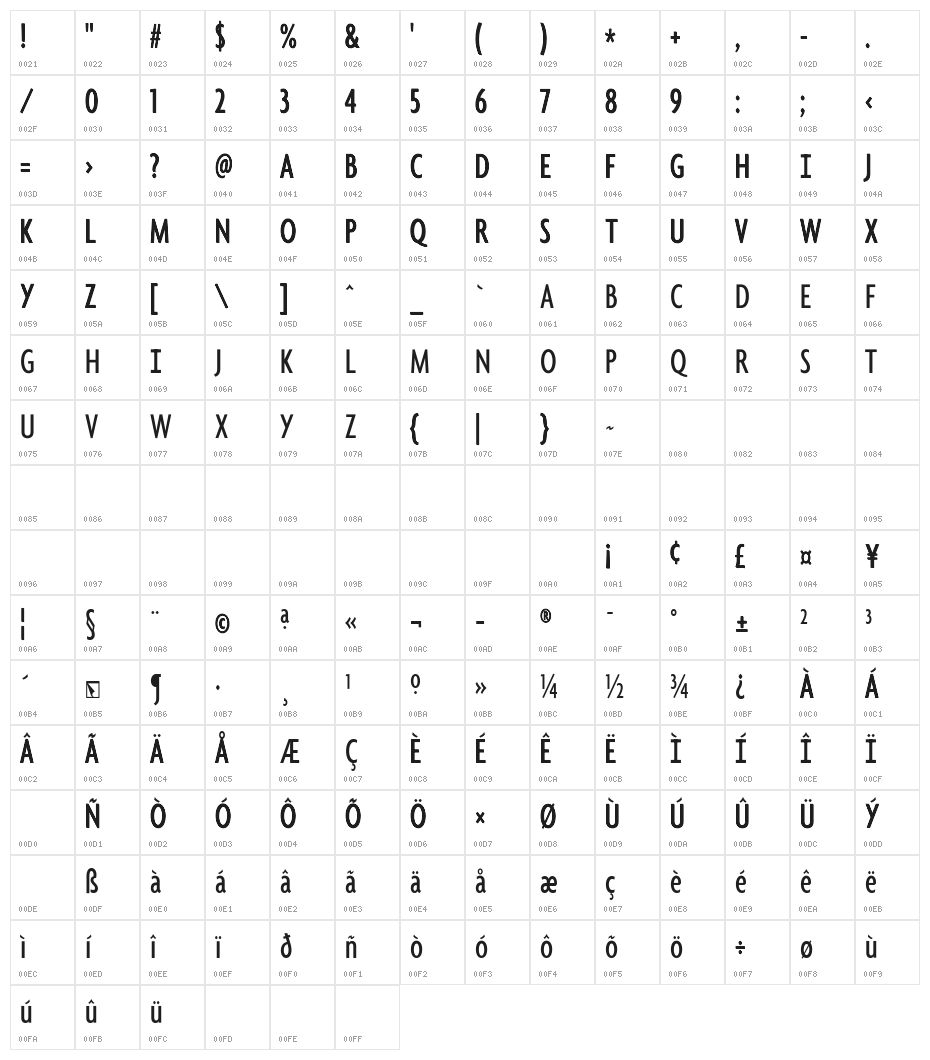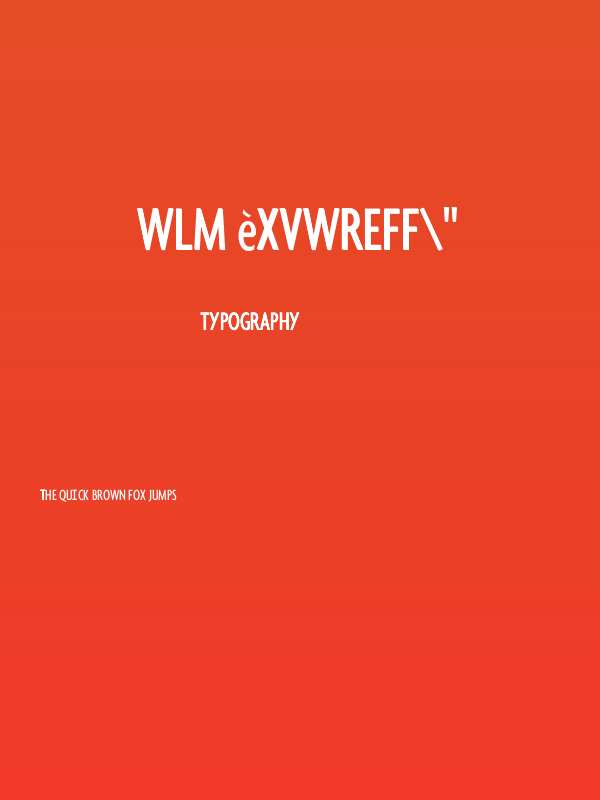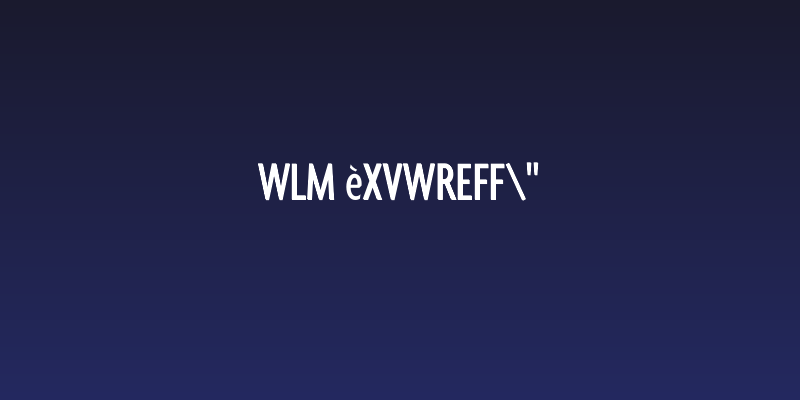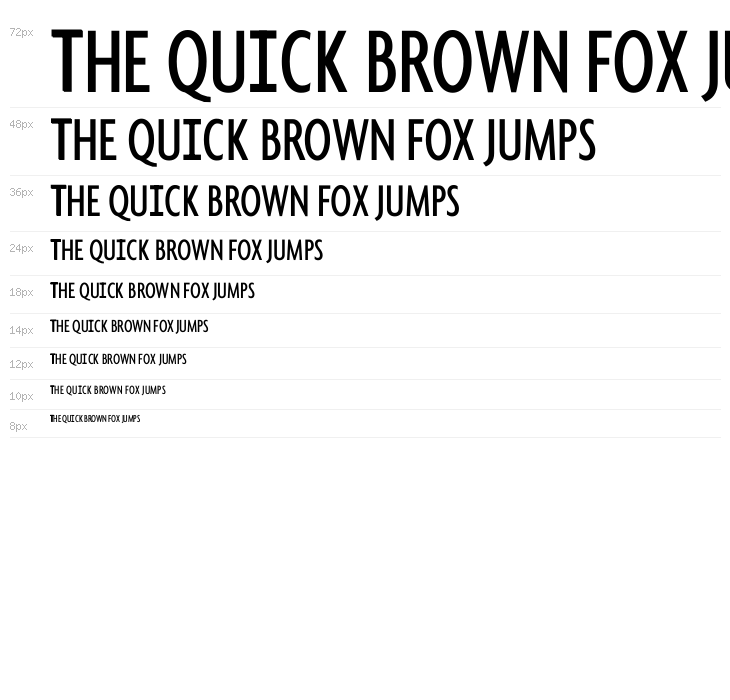
WLM èxvwreff" Font
WLM èxvwreff" Description
This font features a bold and modern sans-serif style with clean, straight lines and uniform stroke widths. The characters are well-proportioned, offering a balanced and professional appearance. The uppercase and lowercase letters maintain a consistent height, contributing to its readability. The numerals are clear and distinct, making them suitable for various applications. Special characters are included, enhancing its versatility for different design needs. The overall design is sleek and contemporary, making it ideal for digital and print media.